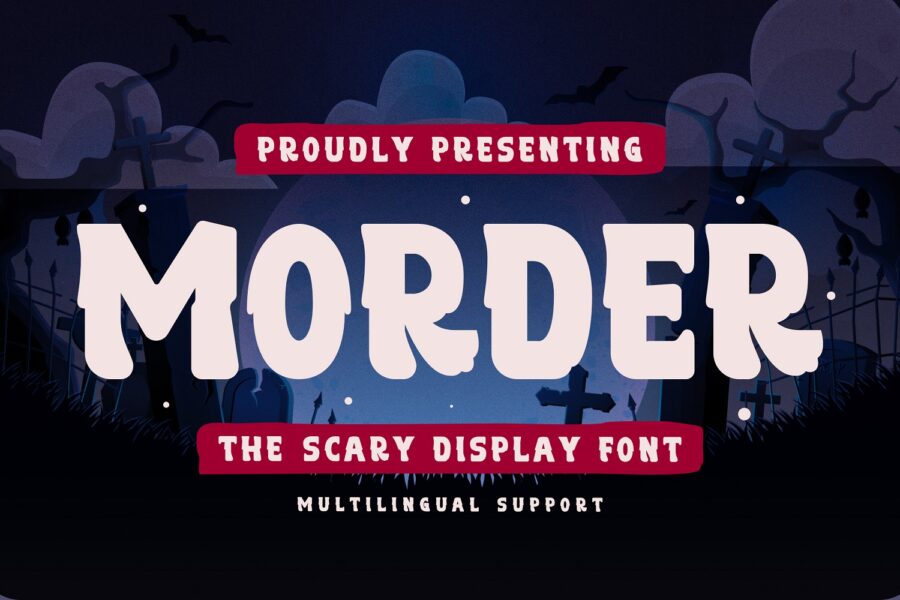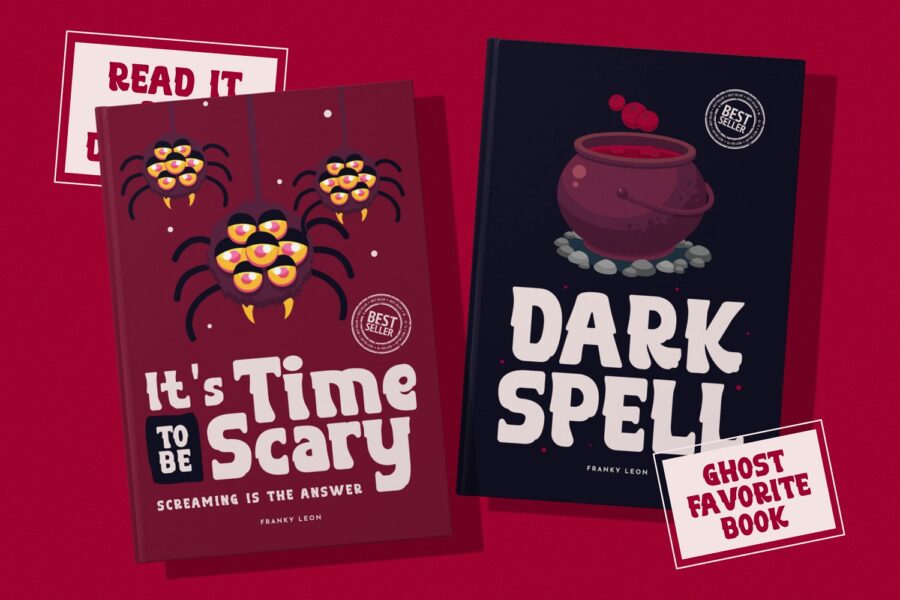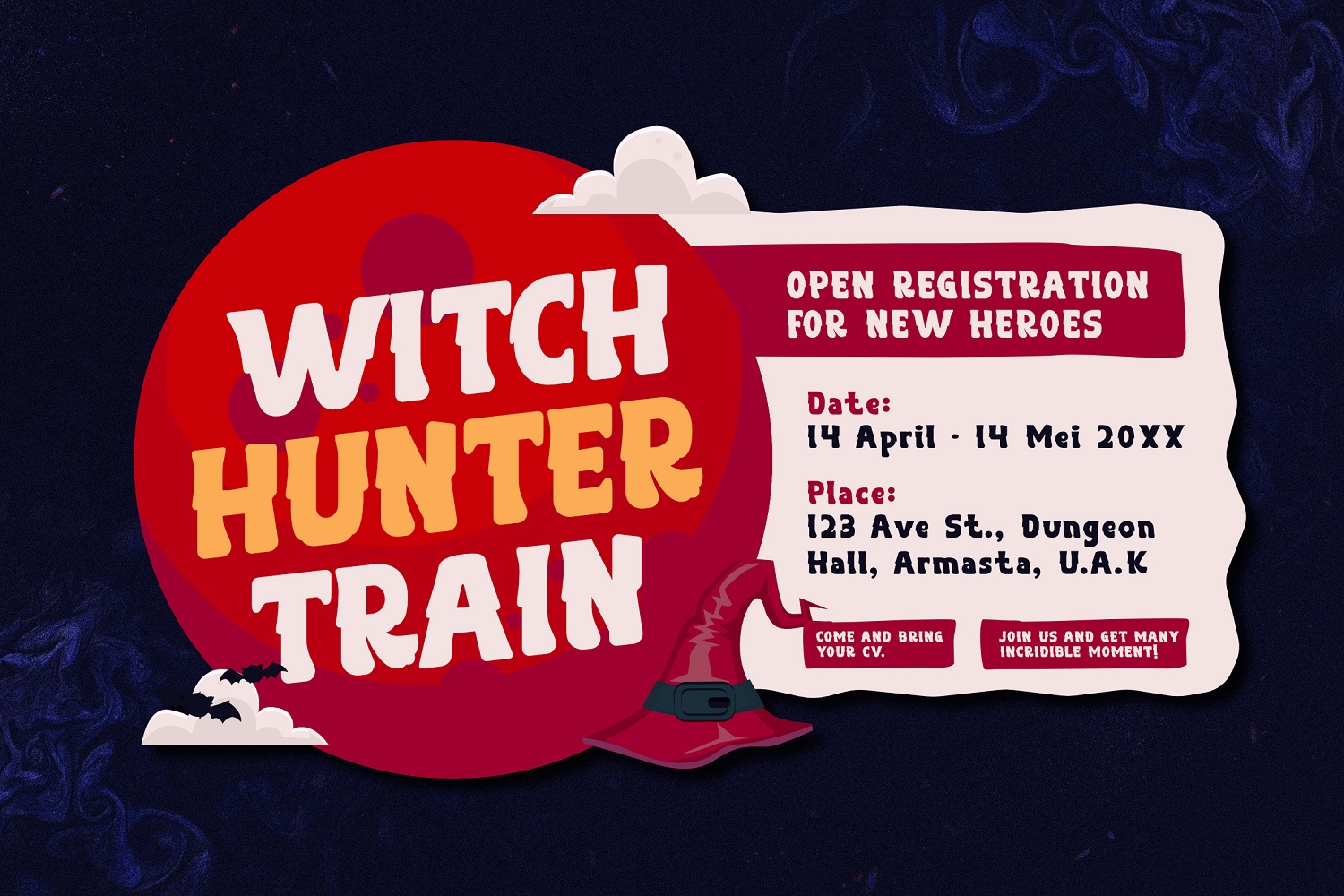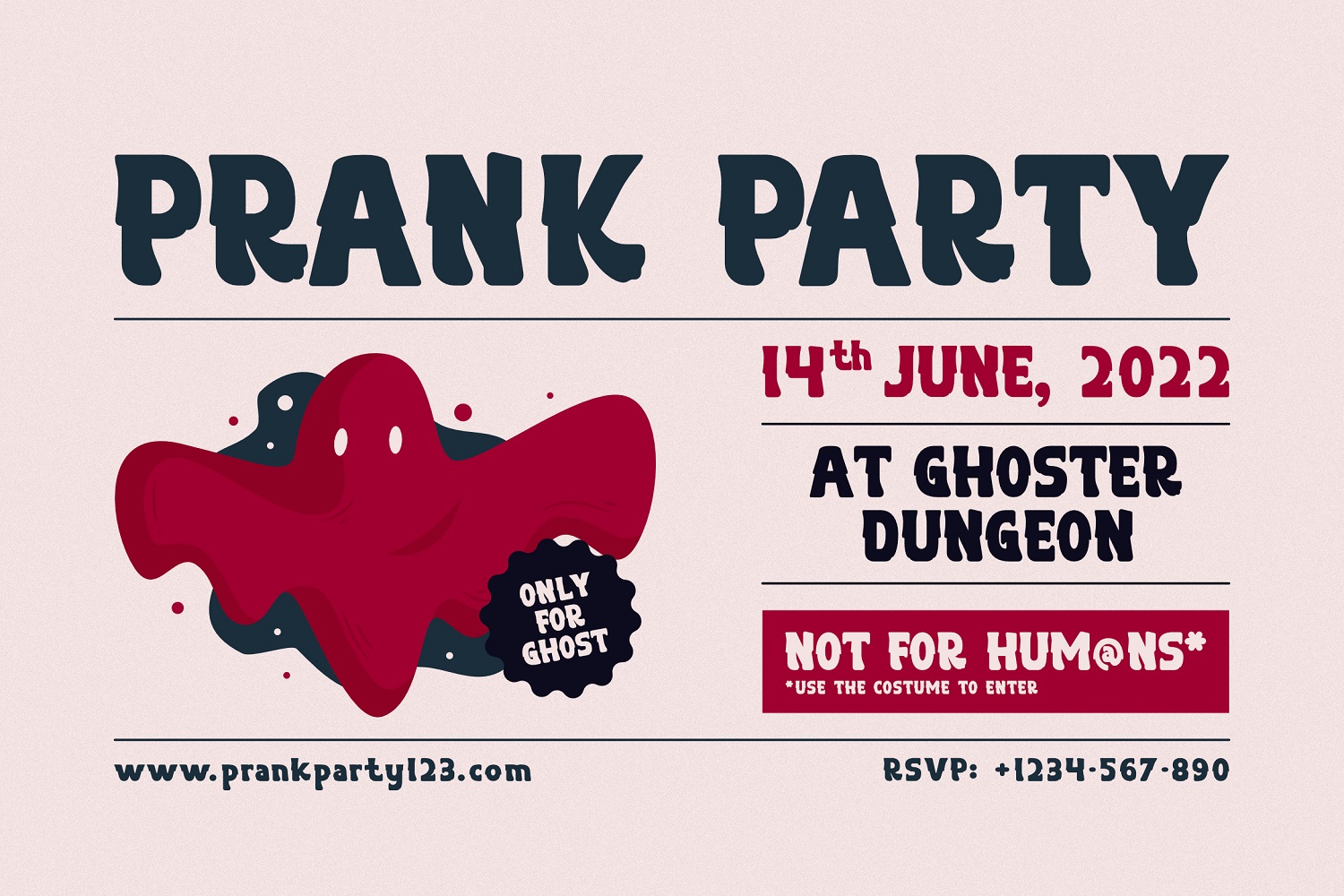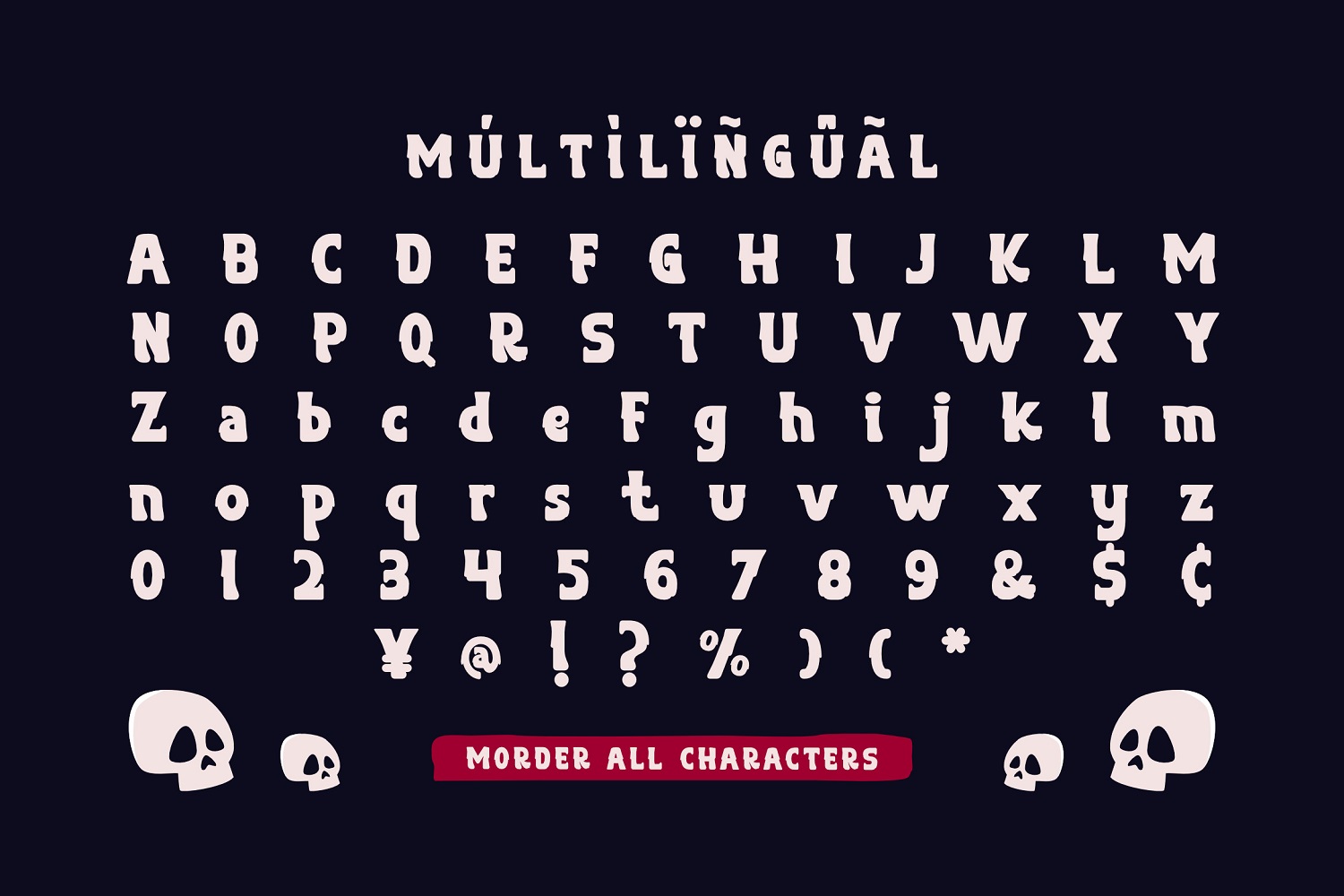
Morder is a spooky and playful display font designed for Halloween-themed projects, horror titles, children’s scary books, and any eerie creative content. Its irregular, chunky shapes and quirky character strokes give off a lighthearted creepy vibe, making it perfect for balancing fright and fun. Morder is your go-to font for crafting party invites, scary storybooks, haunted posters, or spooky branding with charm.
The font includes uppercase, lowercase, numbers, punctuation, and multilingual support. Each glyph has a hand-crafted feel with a slightly distorted form that enhances its haunted appearance. Whether you’re hosting a ghostly event or designing for seasonal campaigns, Morder adds that perfect eerie touch without going too dark.